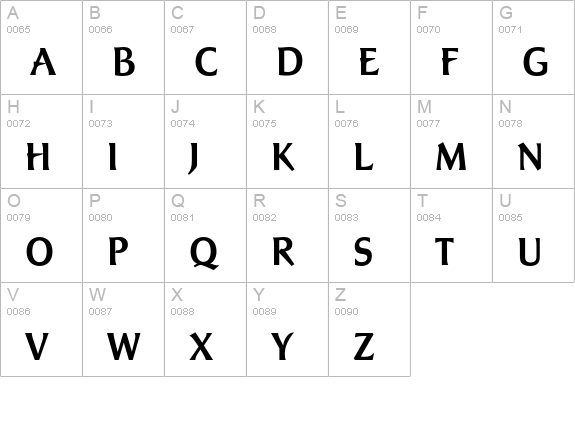
Champers Std Font Details
Champers Std is a sophisticated and elegant font that exudes a sense of timeless beauty and luxury. Its graceful curves and delicate serifs make it perfect for adding a touch of class to any design project. Whether you're creating invitations, branding materials, or editorial layouts, Champers Std will elevate your work to a new level of refinement. The best part? Champers Std is completely free to download at FontsMarket.com. This means you can access this stunning font without any cost, making it an ideal choice for designers looking to enhance their projects without breaking the bank. Don't miss out on the opportunity to add Champers Std to your font library and bring a touch of sophistication to your designs.